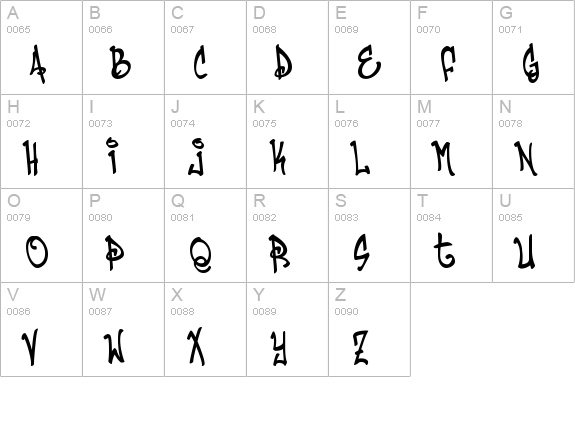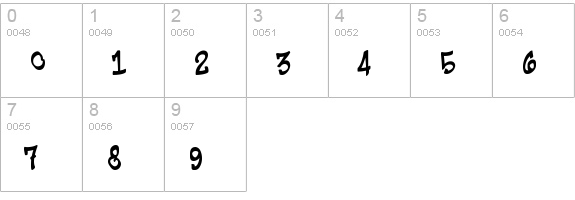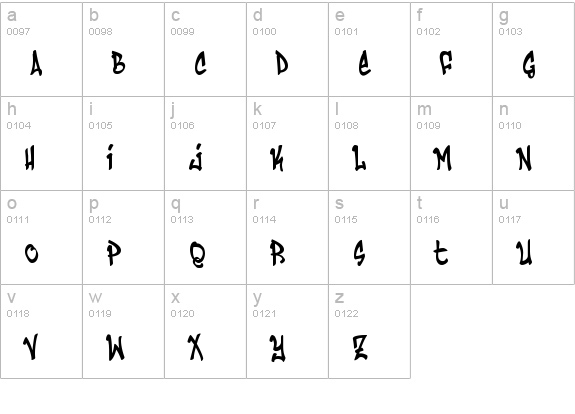
Humbucker Font Details
Humbucker font is a versatile and modern typeface that exudes a bold and contemporary aesthetic. With its sleek lines and sharp edges, this font is perfect for creating eye-catching designs that demand attention. Whether you're working on a poster, logo, or website, Humbucker font will add a touch of sophistication and style to your project. What makes Humbucker font even more appealing is that it is available for free download at FontsMarket.com. Yes, you read that right - you can get your hands on this stylish font without spending a dime! So why wait? Elevate your designs with Humbucker font today and make a lasting impression with its unique charm and elegance.